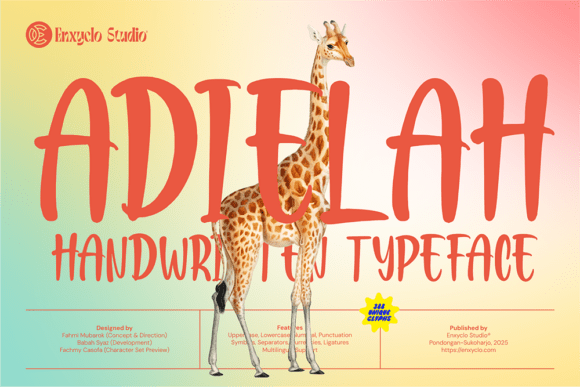
Discover the Charm of Adielah Font: A Handwritten Typeface with Personality
Have you ever been in the middle of a design project, and suddenly, you’re stuck on finding the perfect font? I recall a recent experience where I was working on a branding project for a cozy coffee shop, and I just couldn’t find a font that captured the warm, inviting vibe I was going for. That’s when I stumbled upon Adielah Font, a handwritten typeface designed by Enxyclo Studio. In this article, we’ll explore the unique features of Adielah, its uses, and some helpful tips for incorporating it into your design projects.
A Personal Review of Adielah Font
What I Love About Adielah ✨
- ✅ Playful Spirit: Adielah exudes a playful, adaptable style that adds a personal touch to any design project.
- ✅ Handcrafted Style: The font’s handcrafted style gives it a fluid, organic grace that’s perfect for creating a cozy, natural aesthetic.
- ✅ Comprehensive Character Set: Adielah offers a wide range of characters, including uppercase, lowercase, numerals, punctuation, and symbols, making it incredibly versatile.
- ✅ Multilingual Support: The font supports multiple languages, making it an excellent choice for global design projects.
While Adielah is an exceptional font, there are a few minor quirks to be aware of:
- 🤔 Learning Curve: With 388 glyphs, including ligatures and alternate characters, it may take some time to get familiar with all the options.
- ⚠️ Legibility at Small Sizes: As with many handwritten fonts, Adielah may lose legibility at very small font sizes.
The Story Behind Adielah Font
Enxyclo Studio, the designer behind Adielah, aimed to create a font that would bring a personal touch to design projects. The studio’s inspiration came from the beauty of handwritten typography and the need for a font that could convey a sense of warmth and approachability. With Adielah, they’ve successfully created a font that’s both playful and elegant.
Q: How many glyphs does Adielah have?
Adielah has an impressive 388 glyphs, including ligatures and alternate characters, offering a wide range of typographical options.
Q: Is Adielah suitable for body text?
While Adielah is a beautiful font, it’s best suited for headlines, titles, and short paragraphs. For body text, you may prefer a font with better legibility at small sizes.